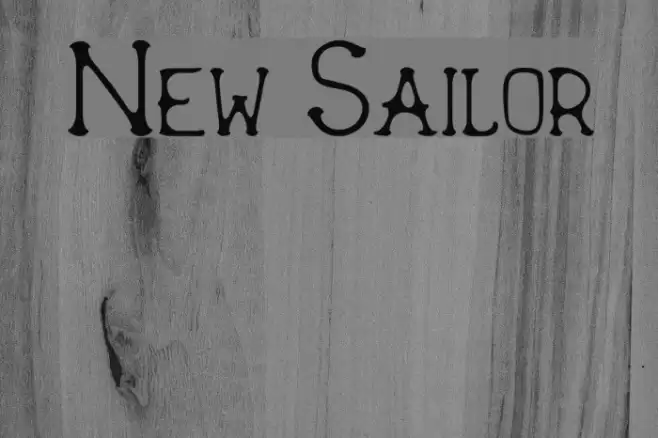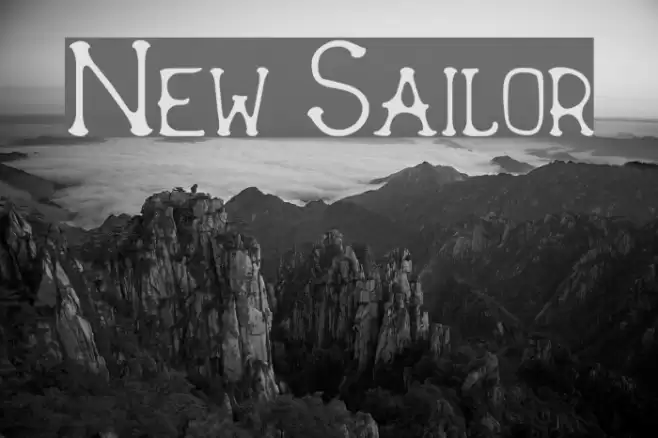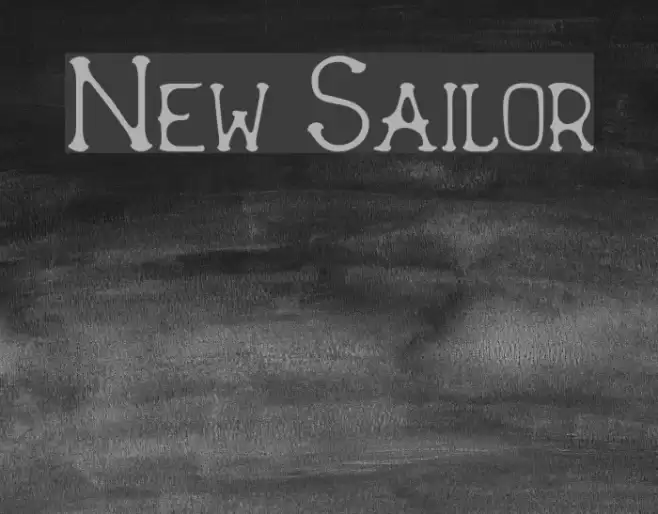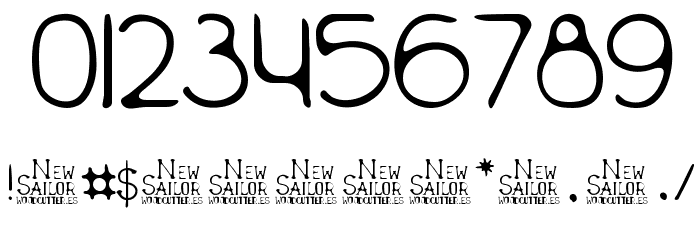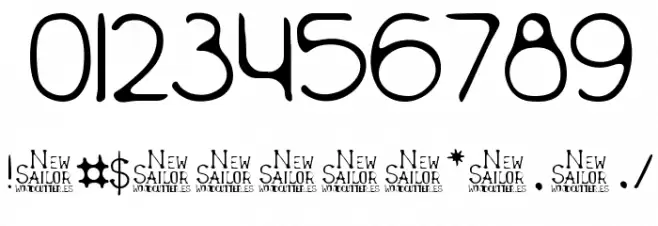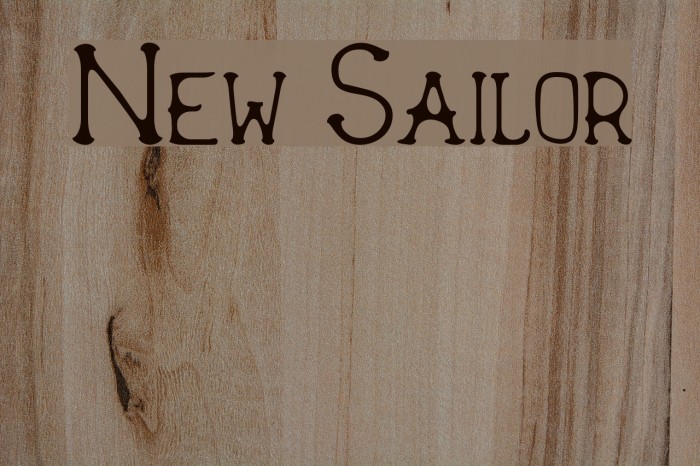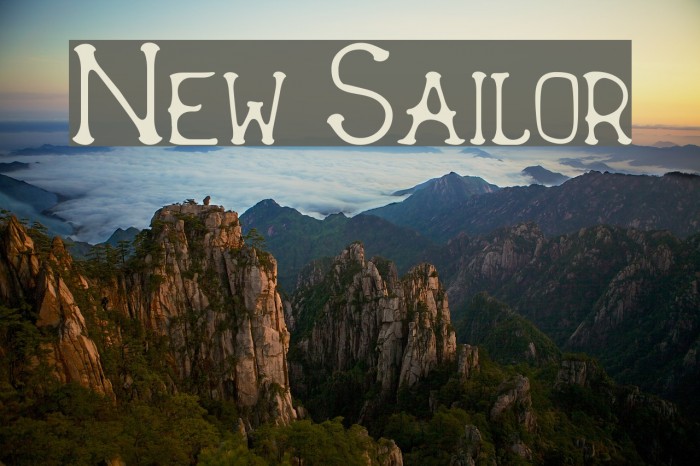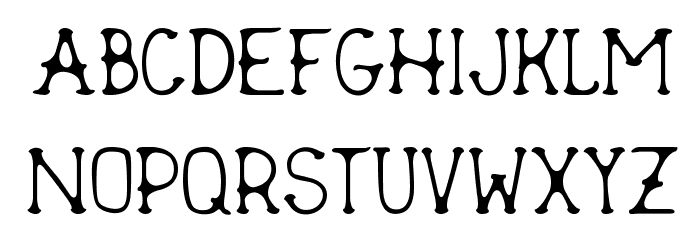
New Sailor Font
New Sailor Description
This font features a unique and playful design with a nautical theme. The characters have a whimsical, hand-drawn quality, with varying stroke widths that add a dynamic feel. The uppercase letters are bold and prominent, while the lowercase letters maintain a consistent style, offering a cohesive look. The numbers are distinct and easy to read, complementing the overall aesthetic. Special characters are creatively designed, enhancing the font's decorative appeal. This font is ideal for projects that require a fun and engaging visual element.
A playful, nautical-themed font with a whimsical, hand-drawn style from Uncategorized fonts.